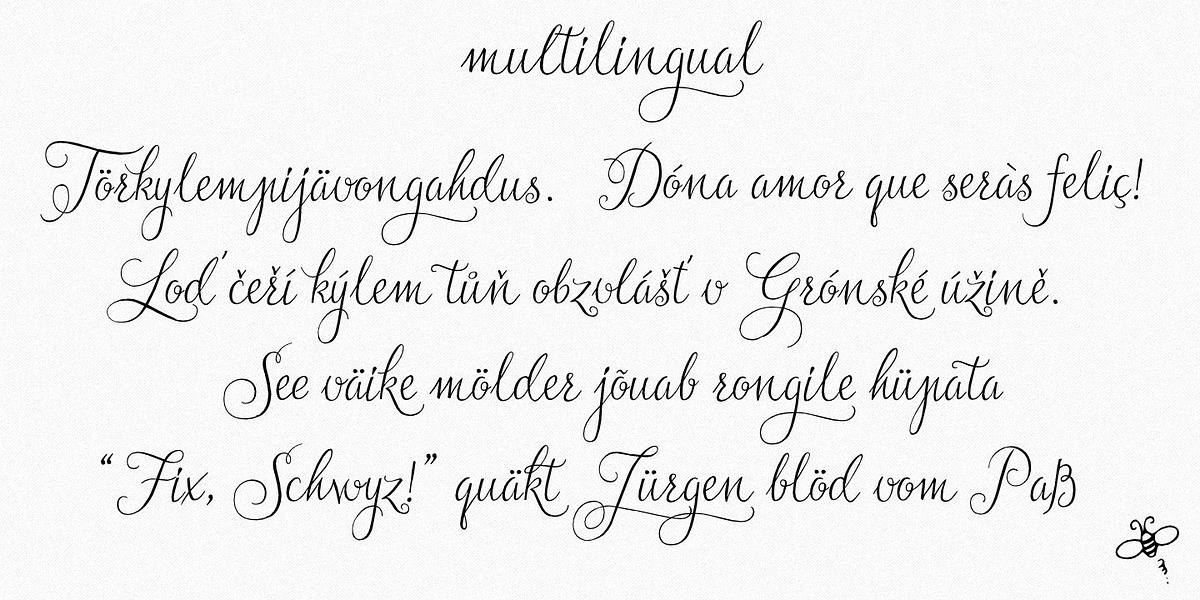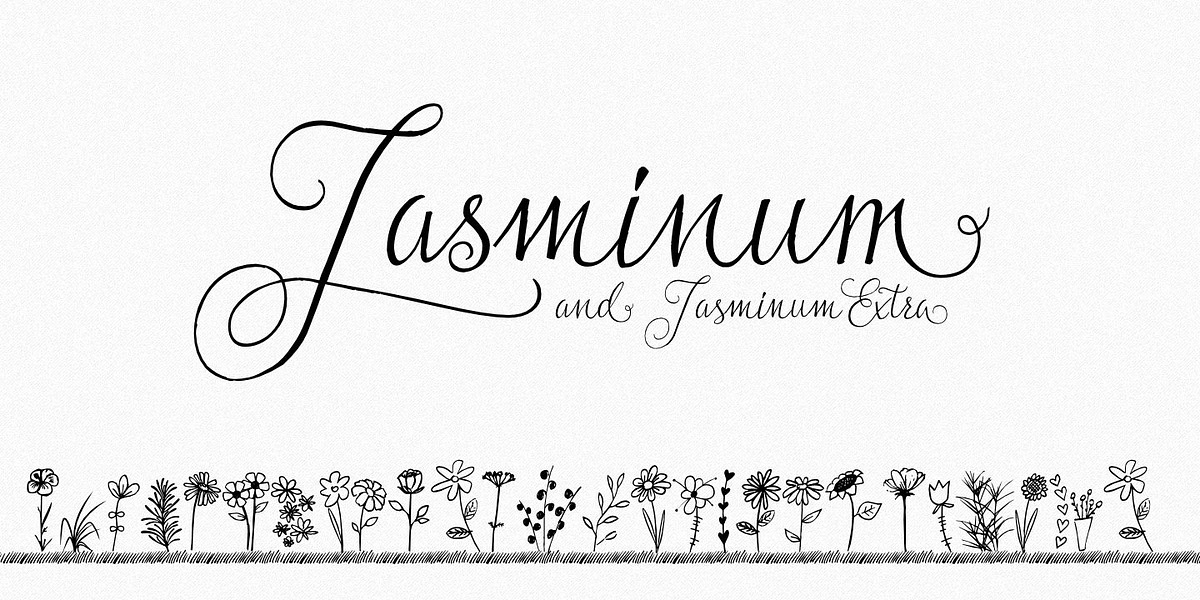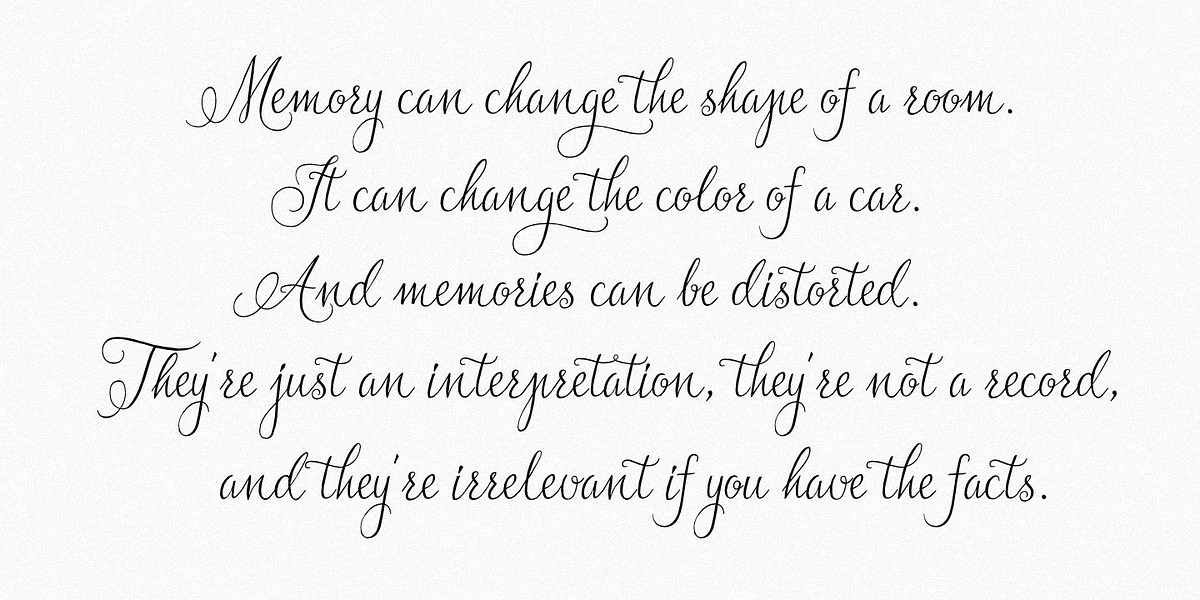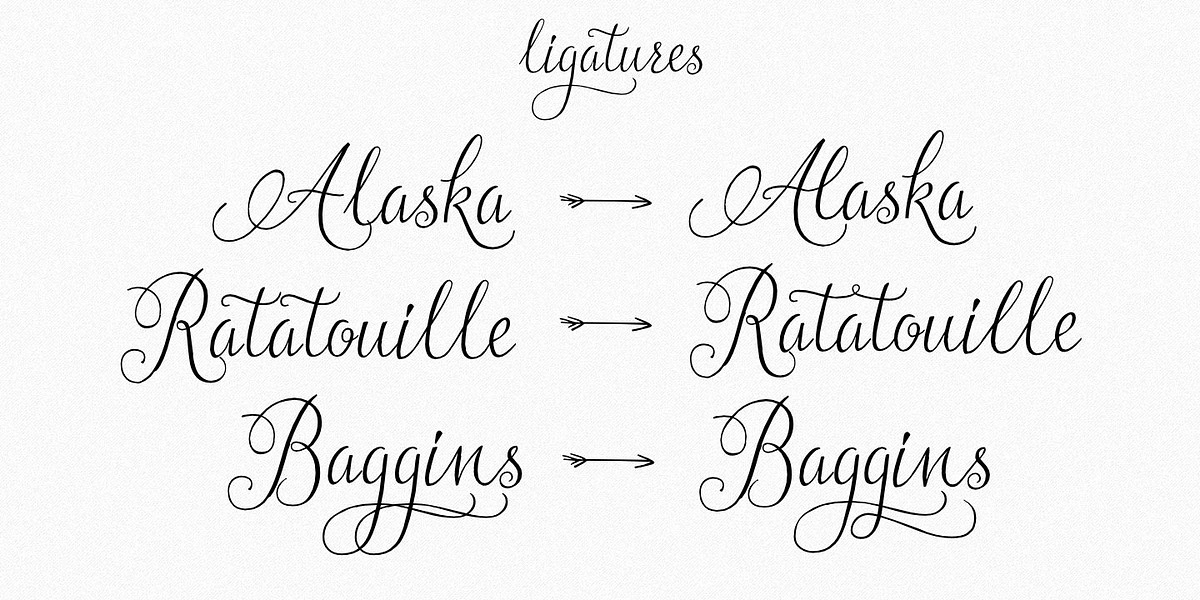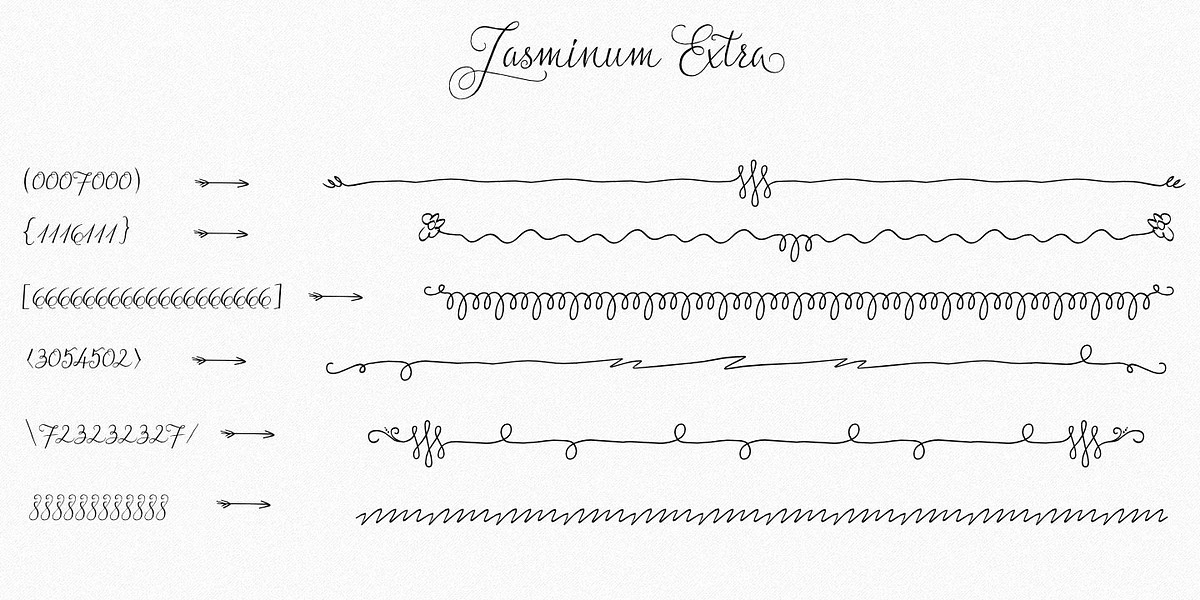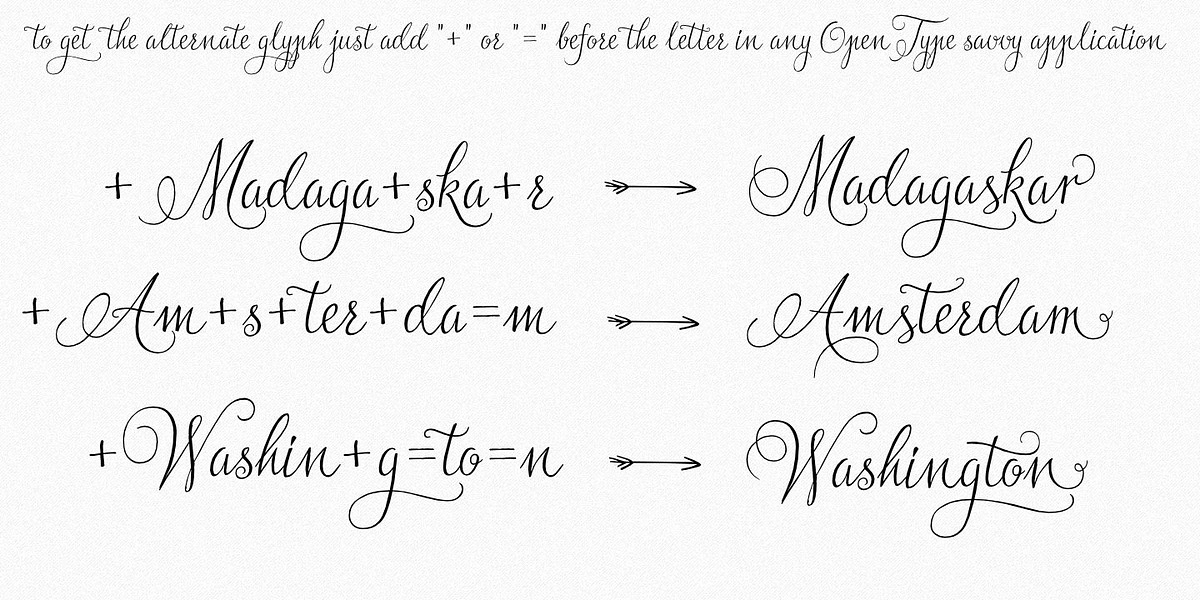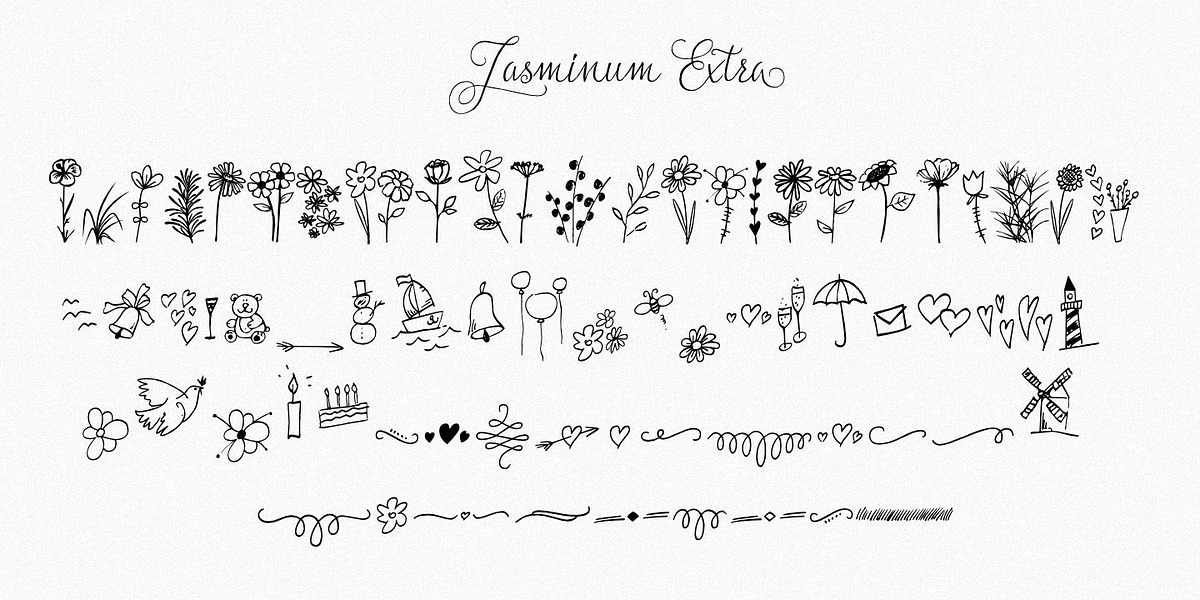
Jasminum
Jasminum is an elegant handwritten script font with formal calligraphic influences. It features ligatures for improved flow and readability and includes over 700 glyphs with three variations per letter accessible through OpenType features or manual selection. The font supports a wide range of languages including Western, Central and Eastern European character sets, as well as Baltic and Turkish.